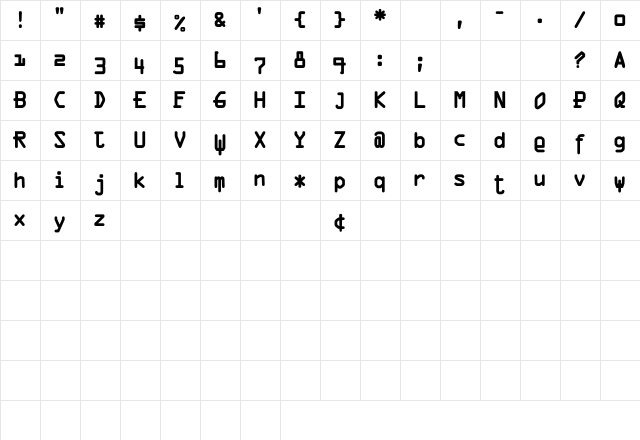
VTDigitDogHog Regular
Design Context for VTDigitDogHog Typeface
VTDigitDogHog has a distinctly futuristic character, with geometric precision and clean angles that feel at home in technology, gaming, and sci-fi contexts.
Pro Tip: Try VTDigitDogHog with generous letter-spacing in UI labels and navigation — the geometric forms benefit from room to breathe.